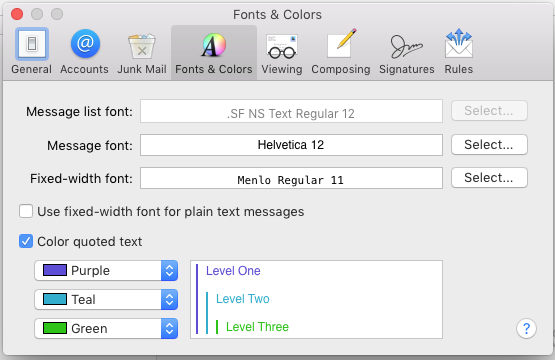
Has anyone come across a way to have the message font in Mail change to San Francisco? Despite my looking everywhere, I'm unable to find San Fran in the font picker.
Writing emails in San Fran occurs by default in iOS (don't think it can be changed at all), so I'm interested to work out if anyone else is unable to change the El Cap mail message font, and if so, why this might be the case?
Much prefer to see San Fran everywhere. Pretty looking font!